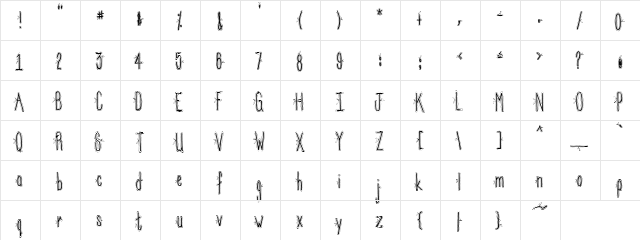
PC Willabella Regular
Design Context for PC Willabella Typeface
PC Willabella is a composed and adaptable typeface that performs quietly and consistently across a wide range of design contexts.